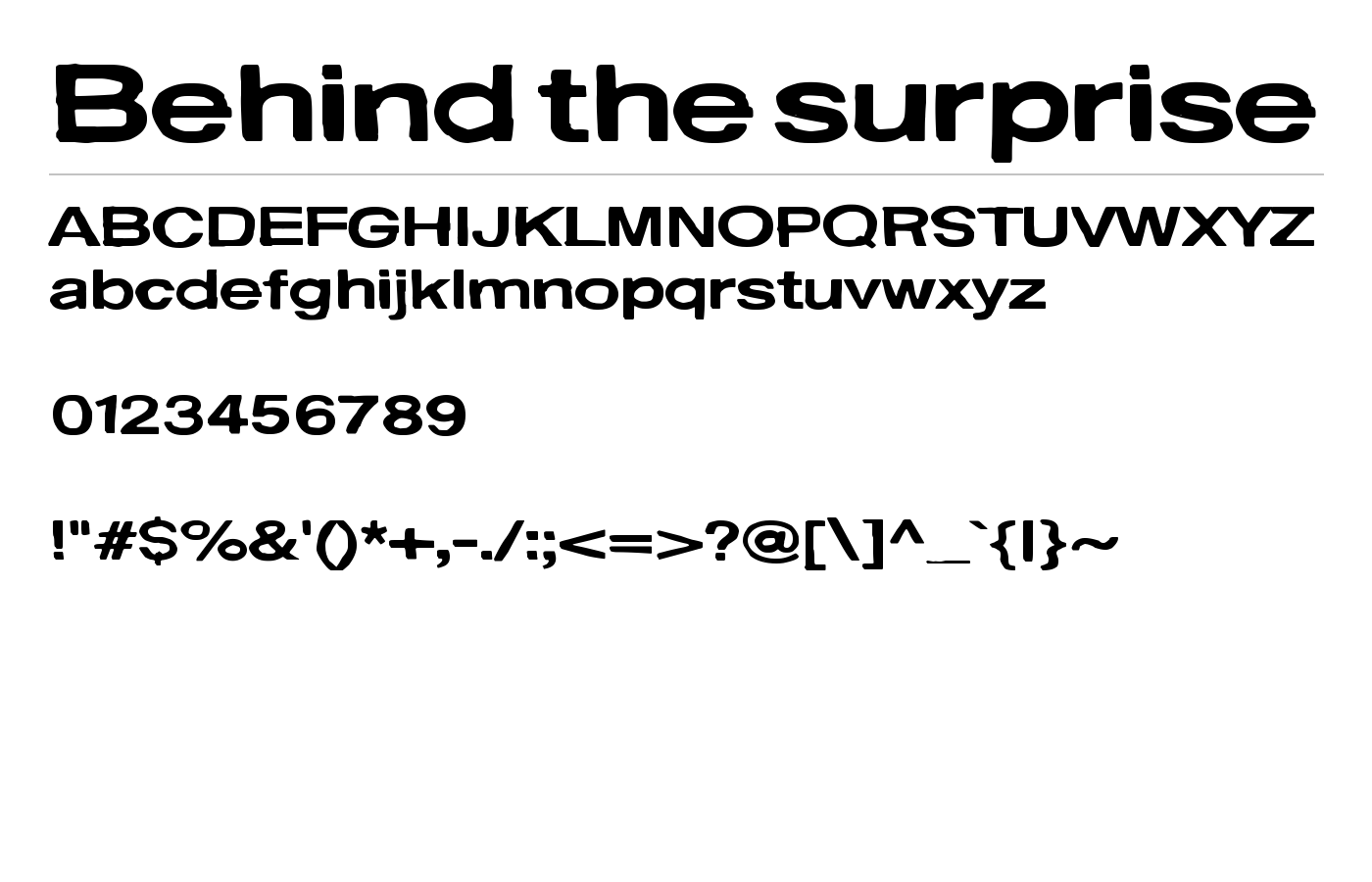
Behind the Surprise is a bold, playful sans serif font with a slightly irregular, hand-crafted feel that adds character and warmth. Its sturdy, rounded letterforms and moderate contrast make it highly readable while conveying a casual, approachable vibe perfect for creative projects, children’s content, and informal branding. This font works well for headlines, logos, and fun editorial designs where personality and friendliness are key.
Behind the surprise Font
About Behind the surprise Font
| Font family | Behind the surprise Font |